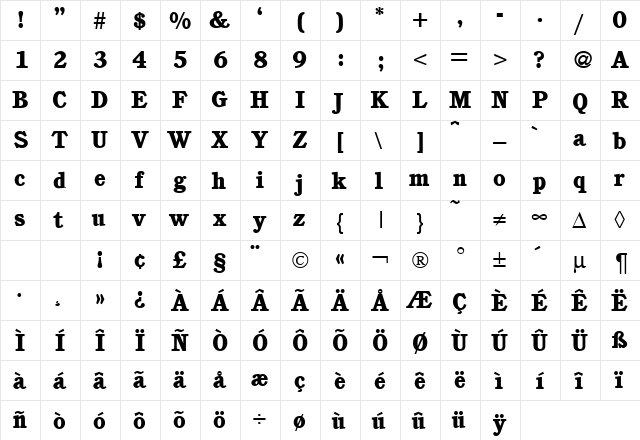
CushingNovaHeavy Regular
Design Context for CushingNovaHeavy Typeface
CushingNovaHeavy takes a measured approach to typography — its balanced proportions and neutral character make it a reliable workhorse for both digital and print work.